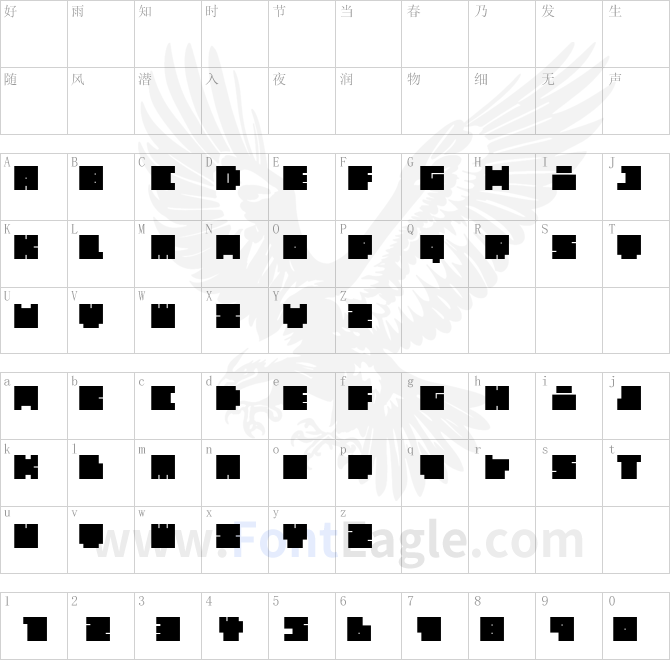
WEAR FAT SHIRT Okay.ttf Font Image
WEAR FAT SHIRT Okay.ttf Base Font Information
- Font name:WEAR FAT SHIRT
- Font Subfamily:Okay
- Font Subfamily ID:ManuelViergutz: WEAR FAT SHIRT Okay: 2011
- Font Full Name:WEAR FAT SHIRT Okay
- Postscript:WEARFATSHIRT-Okay
WEAR FAT SHIRT Okay.ttf Characters Sample